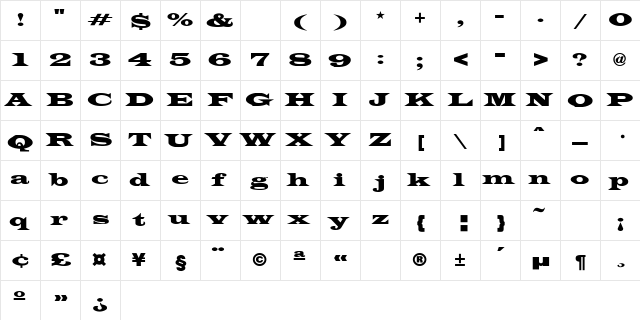
01 Regular Font Preview
01 Regular
01 Regular Font Details
Design Context for 01 Typeface
01 offers clean, dependable letterforms without strong stylistic allegiance, making it a practical choice for designers who need flexibility.
Pro Tip: Use 01 in both headline and body roles to test its range before committing to a single application.